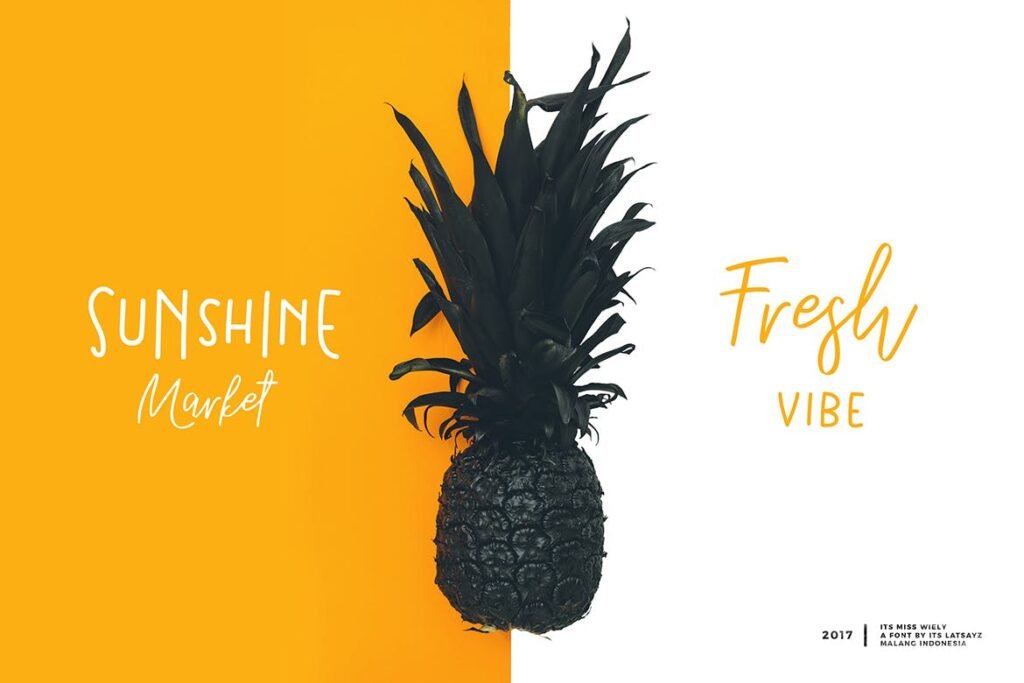
Typography Pairs: 30+ Dynamic Font Duos
Custom font pairs that were made for each other – here’s a collection of our favorites, and some tips for pairing fonts together.
Bonnie and Clyde, peanut butter and jelly, Tom & Jerry, Serif + Sans Serif: indisputable perfect pairings.
When it comes to pairing fonts together, there are various design elements to consider: size, bold vs. thin lines, rough vs. smooth edges, spacing. So what works well together and why?
Its Miss Summer Font Duo by swistblnk
Its Miss Summer Font Duo by swistblnk
To create balance and harmony in your design you want to choose complimentary fonts. An easy way to do this is to pick fonts in the same font family, which usually includes serif and sans versions of the typeface along with different weights and styles that are designed to work well together. Serif and sans serif fonts are classic combinations that can offer a beautiful balance.
To ensure the design is interesting and eye-catching, it’s also crucial to create a visual hierarchy. It’s like selecting who will play the lead and who will be the supportive sidekick. You can do this easily by varying the boldness, size, and spacing of the fonts.  The hierarchy creates an easy-to-read design and informs your audience where to look first and what information is most important.
What about fonts from different font families? Marrying fonts from different families can create stunning designs. The key here is avoiding conflict. If you choose a font that is especially ornate, you’ll want to select a simple clean font to accompany it. This prevents the fonts from fighting for attention and creates balance in the design. A common pairing is a playful script font with a simple all caps sans.
With so many design elements to consider, you may start to feel like Goldilocks, looking for fonts that aren’t too similar, or too different, but finding a combination that is juuuuustttt right. To take some of the guesswork out of the equation we are providing a list of some beautifully paired fonts. A lot of fonts on Envato Elements come as ‘duos’, not just one, but two fonts that are packaged together because of their complimentary style. Here’s a list of some of our favorite dynamic duos:
Serif + Sans Serif
Grembo Font Duo
The Grembo Font Duo is a warm and welcoming combination. It’s the friendliest pairing you’ll find, making it perfect for invitations, logos, promotional graphics, and more.
Script + All Caps Sans
Jimmy
The Jimmy Script font family includes a light handcrafted script and an all caps bold sans font. The Jimmy Script and Jimmy Sans fonts were inspired by the modern vintage trend that is sweeping the design industry. While the Script and Sans fonts can be used effectively on their own, they create magic when combined.
Ocean Waves Brush
Ocean Waves Font Duo includes Ocean Waves regular and Ocean Waves monograms. The combination of curly feminine brush fonts with smooth clean uppercase letters works well for various projects.
Black and White Typeface
Introducing Black and White hand brushed font duo. The script was created with a brush and ink offering a bold look with an irregular baseline. The set includes an additional black and white display that works with black and white script to create awesome designs.
Seniors_Studio
brushgyo typeface
Introducing Brushgyo duo typeface, a modern script and sans font pairing. Brushgyo duo brother is perfectly suited for logotype design, menu design, t-shirts design and more.
alit_design
Claudhia & Jhelio Brush
Claudhia is bold brush script font. With this modern script and the clean, sleek uppercase font you can take your designs and branding to the next level.
Spoodbrush Font
Spoodbrush is a set of handbrushed textured fonts designed to compliment each other.
Campfire Stories
Introducing Campfire Stories, a duo of hand-crafted fonts meticulously designed to work in harmony with each other. The pack includes a sans serif uppercase font and an artsy hand-lettered lowercase script that create the perfect pairing.